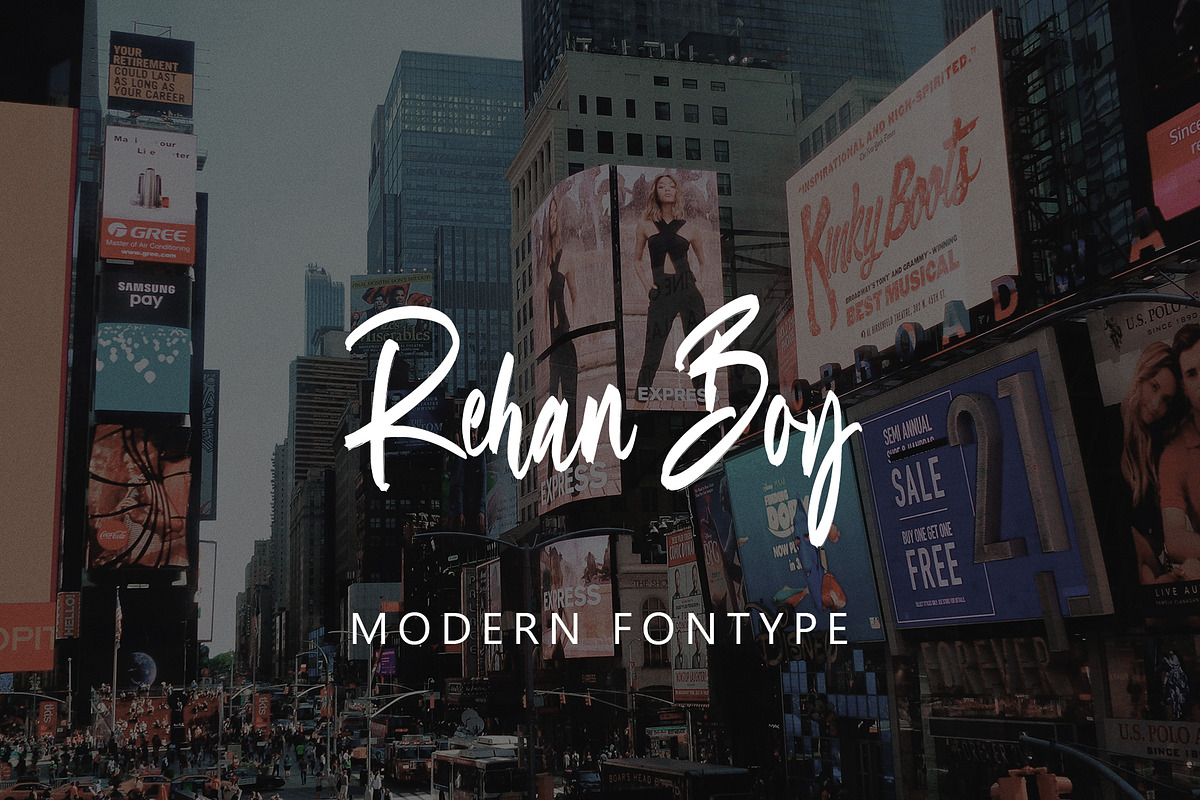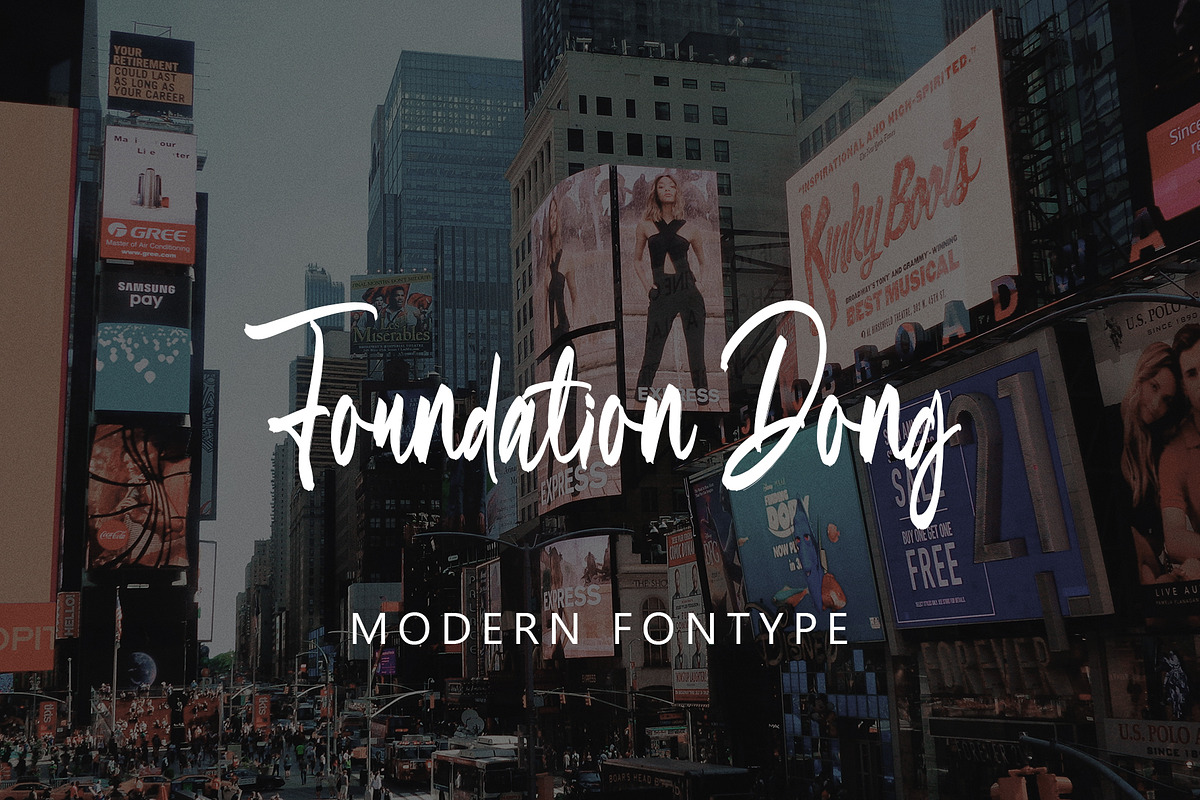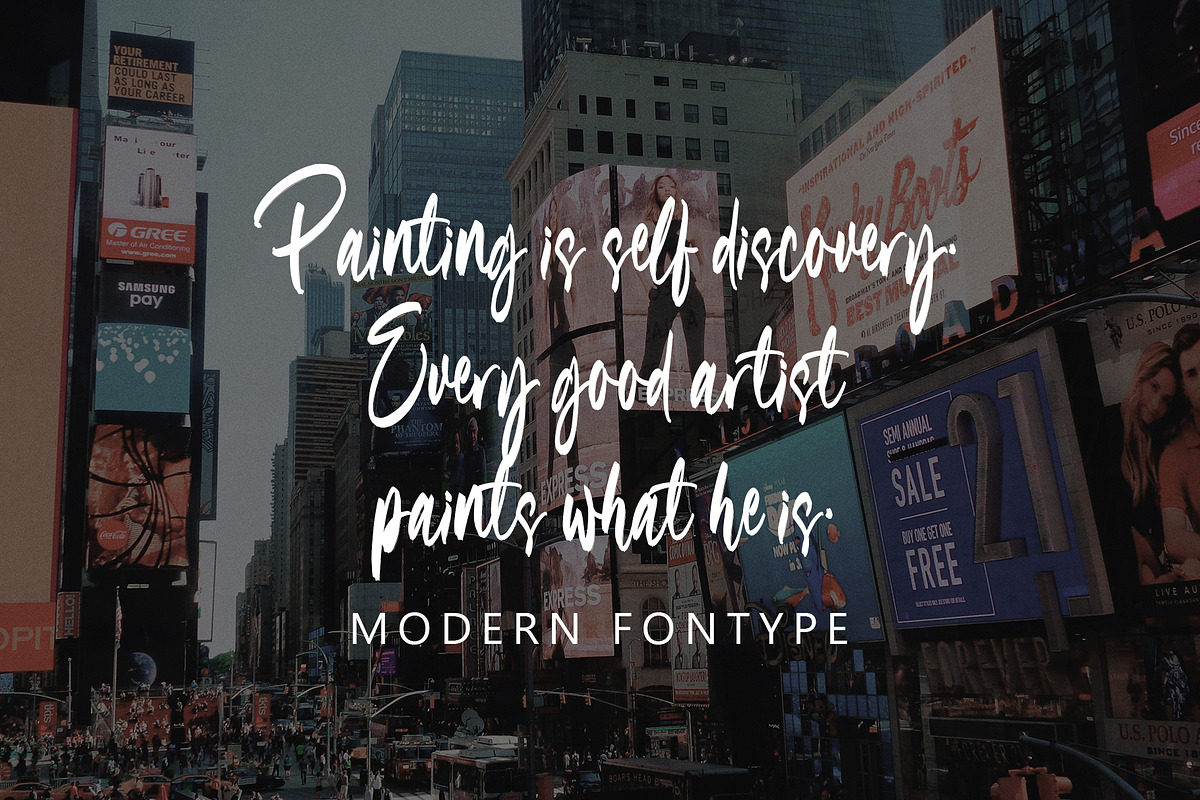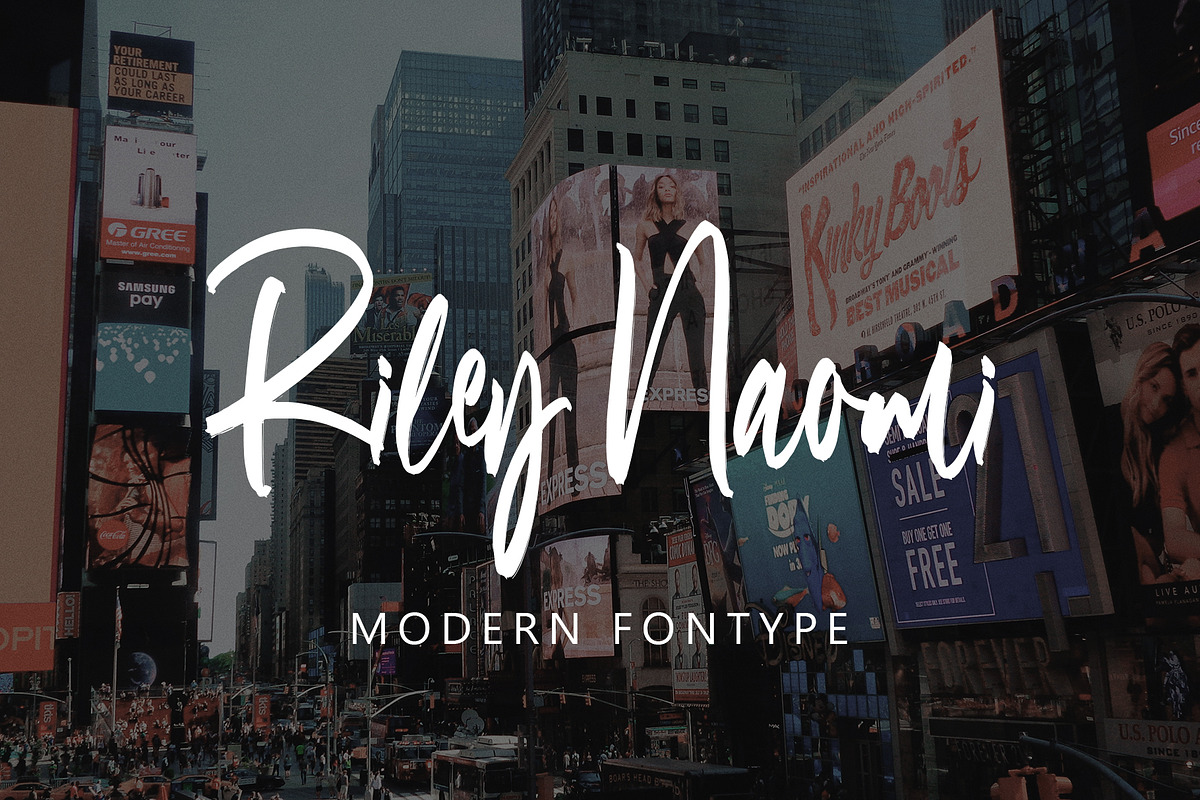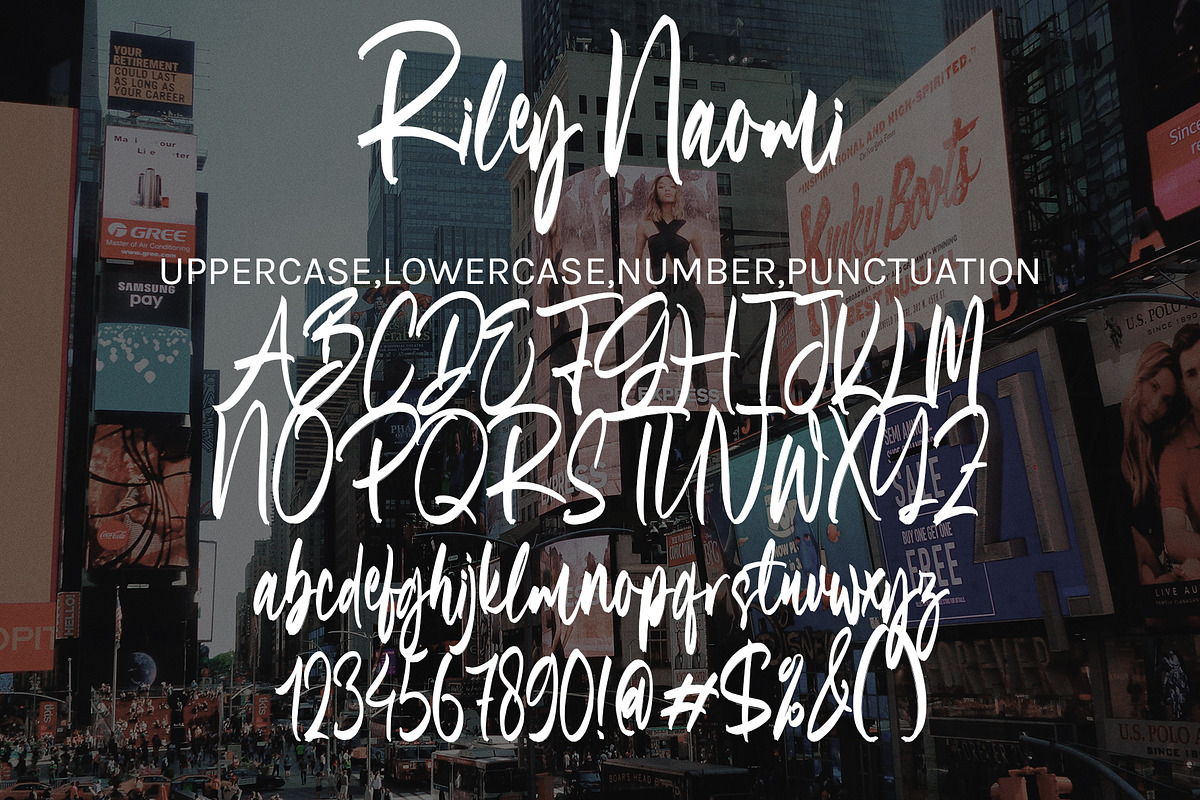
Riley Naomi
Riley Naomi with new style, this font will perfect for many different project ex: quotes, logo, blog header, poster, banding, letter, invitation, stationery, etc...